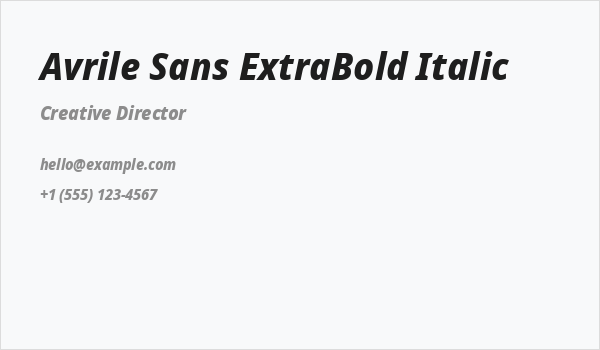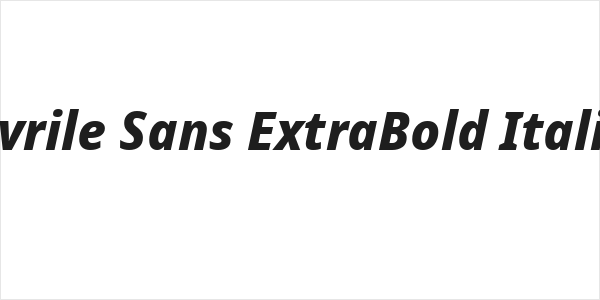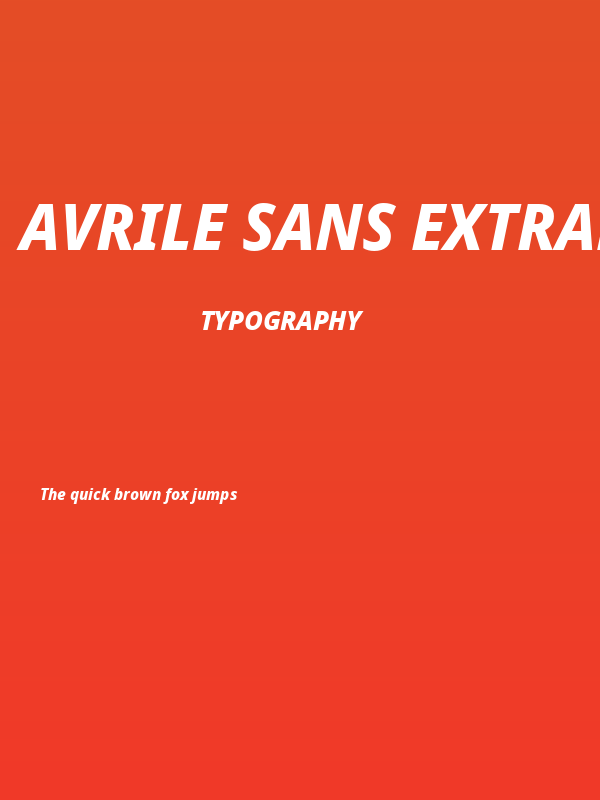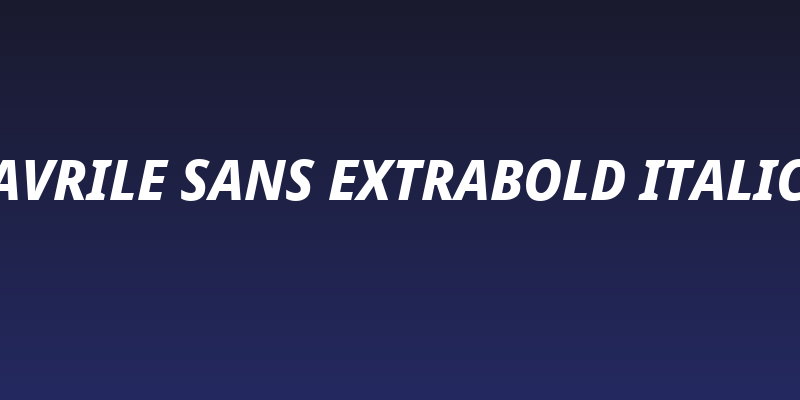
Avrile Sans ExtraBold Italic Font
Avrile Sans ExtraBold Italic Description
This typeface exhibits a bold and dynamic presence with its extra-bold weight and italic style. The characters are well-defined with a slight slant, adding a sense of movement and urgency. The sans-serif design ensures a clean and modern look, making it highly legible. The uppercase and lowercase letters maintain consistent proportions, while the numerals and special characters are crafted to match the overall aesthetic. The font's boldness is complemented by its smooth curves and sharp edges, creating a striking visual impact.
| Use Case | Headlines, Logos, Advertising |
| Proposed Projects | Ideal for branding, advertising, headlines, and any project requiring a strong visual impact. |